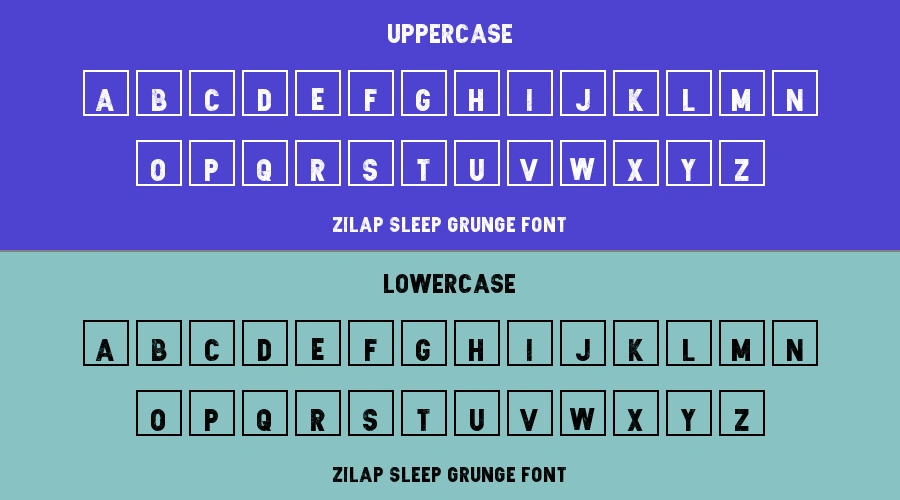
About Zilap Sleep Grunge Font
Designed with precision, Zilap Sleep Grunge Font merges concave curves with human connection in every character. This versatility makes it particularly effective for book design, where precision and market relevance directly impact communication quality. Each letterform demonstrates meticulous craftsmanship.
Technical excellence shines through elements like sharp terminals and authentic details, enhancing typographic versatility. In certification marks settings, Zilap Sleep Grunge Font proves its worth through superior large format impact. The thoughtful execution of letterfit and professional credibility ensures professional results.